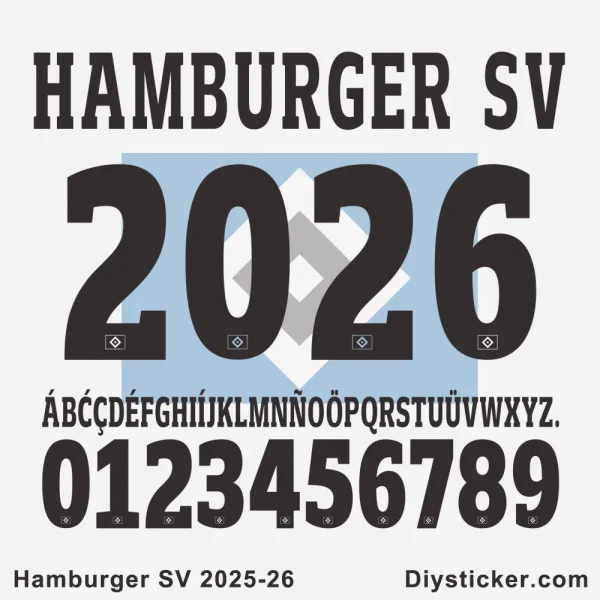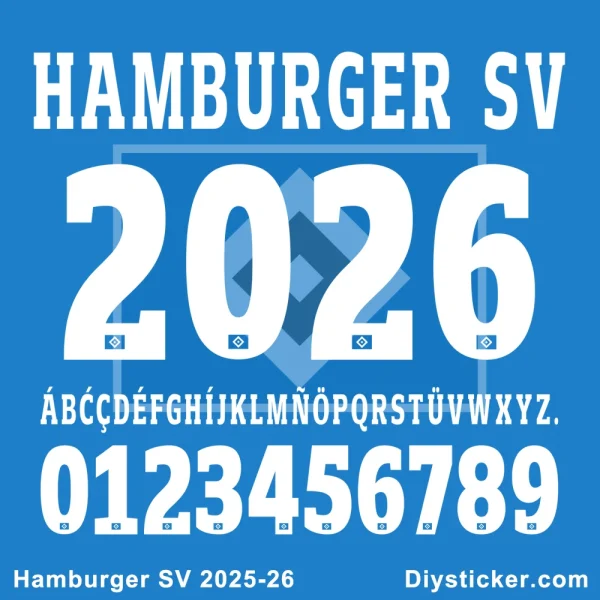
Channel the enduring spirit of the Dinosaur with the official Hamburger SV 2025-2026 Font. This is the authentic typeface used by Germany’s legendary club across its jerseys, official communications, and match-day materials.